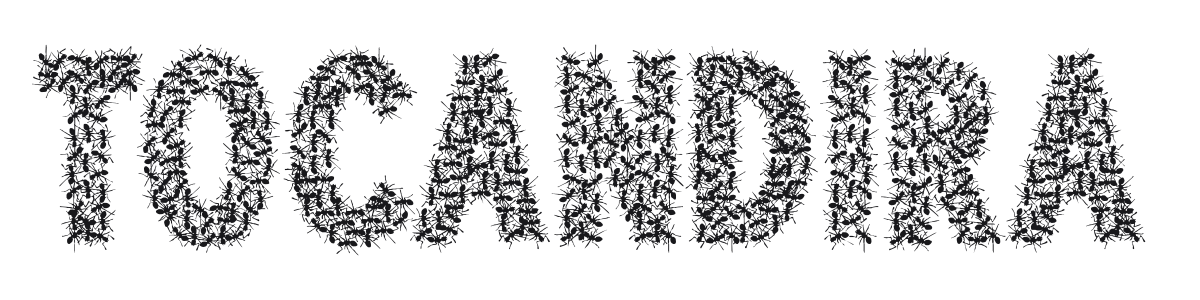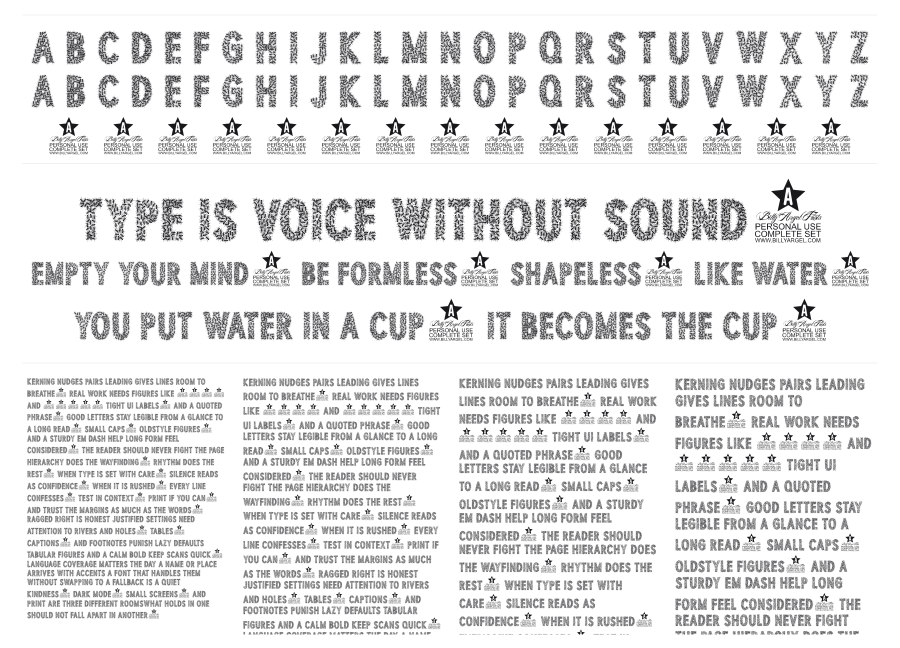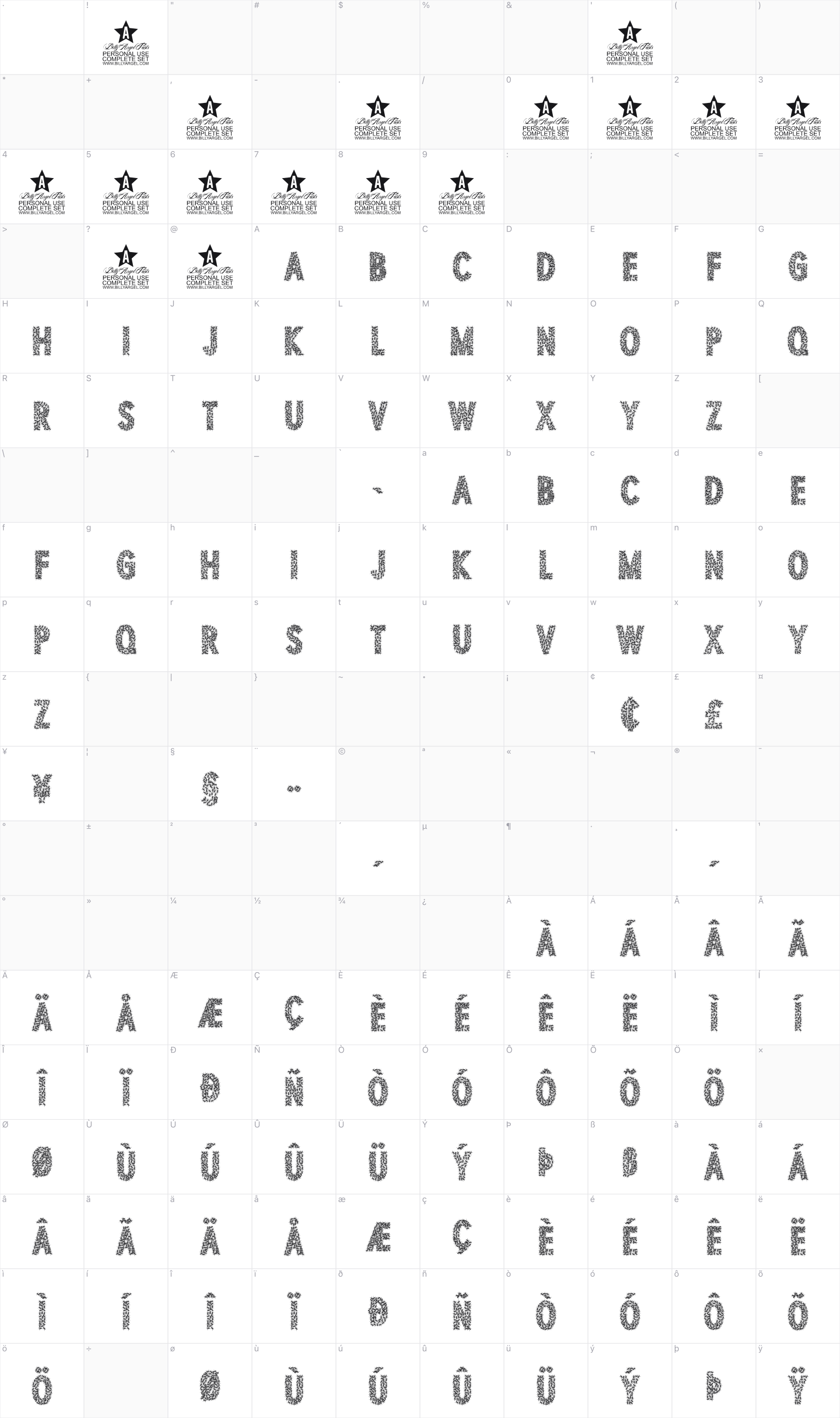
Tocandira
Tocandira is a display font where every character is filled with a dense swarm of tiny ant-like insects, giving each letter the look of a living, crawling mass. The underlying shapes are broad and legible at large sizes, but the intricate texture demands scale to read clearly. It carries an unmistakably raw, wild energy suited to posters, album covers, or any project that needs a visceral edge.